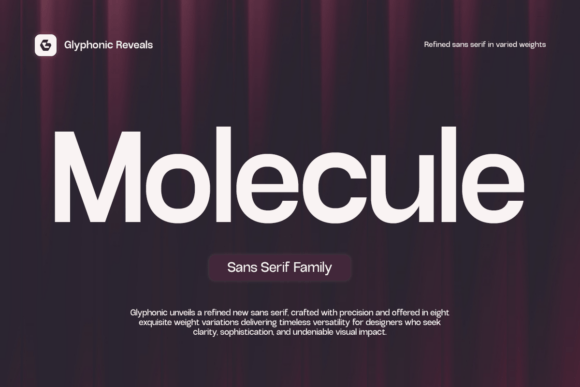
Have you ever stared at a blank page, trying to come up with the perfect font to match your design’s vision? The struggle is real, but with the right font, it can be a game-changer. That’s where the GC Molecule Font comes in – a modern, clean, and precisely crafted typeface designed for clarity and versatility.
This elegant sans-serif font is perfect for branding, editorial layouts, and technology-driven projects. Its smooth geometry and balanced stroke details make it adaptable yet uniquely distinctive. Whether you’re building sharp interface designs or clean and minimalistic posters, the GC Molecule Font brings sophistication, modernity, and effortless elegance to your typography.
Gc Molecule Font Key Features
- Font Family: Gc Molecule is a sans-serif font family designed to resemble the structure of molecules.
- Character Set: Supports a wide range of languages, including Latin, Cyrillic, and Greek alphabets, with over 1,000 glyphs.
- Font Size: Available in 5 weights, ranging from Light to Black, allowing for versatility in design applications.
- Resolution: Designed for high-resolution displays, making it suitable for use in digital media, such as web design, mobile apps, and video games.
- Unique Characteristics: Features a unique, futuristic design inspired by the structure of molecules, making it a great choice for science, technology, and innovation-related projects.
Gc Molecule Font Review
Overall, I found the Gc Molecule font to be a visually striking and modern choice for digital and print designs. ✨ The font’s unique molecular structure-inspired design elements give it a cutting-edge feel that can elevate a wide range of projects. ✨ The font’s versatility and flexibility in different contexts are definitely its strongest points.
- ✨ Unique design: The font’s molecular structure-inspired design is both visually striking and thought-provoking.
- ✨ Versatility: The font works well in both digital and print designs, making it a great choice for a wide range of projects.
- ✨ Easy to read: Despite its unique design, the font is still easy to read and understand, even at smaller font sizes.
However, I did encounter some limitations when working with the font. ⚠️ The font’s unique design can sometimes make it difficult to use in certain contexts, such as in situations where a more traditional or conservative design is required. Additionally, the font’s size may not be suitable for all projects, as it can appear overwhelming if used too prominently.
- ⚠️ Limited contextual flexibility: The font’s unique design may not be suitable for all projects or contexts.
- ⚠️ Size limitations: The font’s size may not be suitable for all projects, as it can appear overwhelming if used too prominently.
Overall, I would recommend the Gc Molecule font to designers who are looking for a unique and modern font to add some visual interest to their projects. However, I would caution against using it in situations where a more traditional or conservative design is required.
Tips for Getting the Most Out of Gc Molecule Font
Experiment with different font sizes, colors, and styles to create visually appealing designs.
Use Gc Molecule Font for scientific, technical, or medical presentations to convey a sense of precision and accuracy.
Combine Gc Molecule Font with other fonts to create a unique and eye-catching design.
Gc Molecule Font is suitable for:
Scientific and technical presentations
Medical and pharmaceutical marketing materials
Chemical and molecular diagrams
Academic and research papers